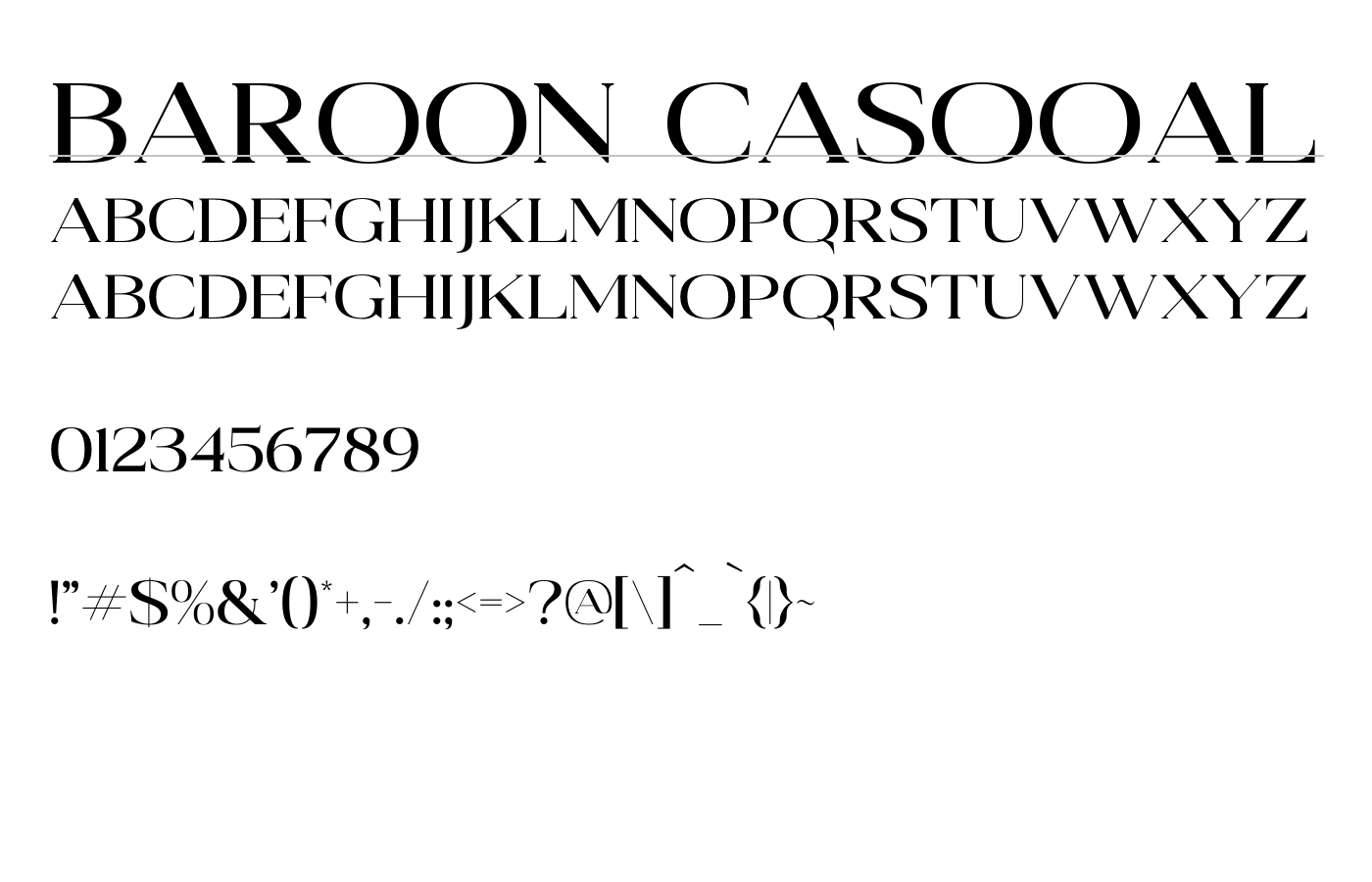
Baroon Casooal is an elegant serif font with a modern Didone style, characterized by high contrast between thick and thin strokes and sharp, delicate serifs. Its refined letterforms, including distinctive single-story 'a' and smooth curves, lend a luxurious and sophisticated feel, making it ideal for fashion branding, upscale editorial use, and stylish headlines. This font shines in designs that require a touch of class and timeless beauty.
Baroon Casooal Font
About Baroon Casooal Font